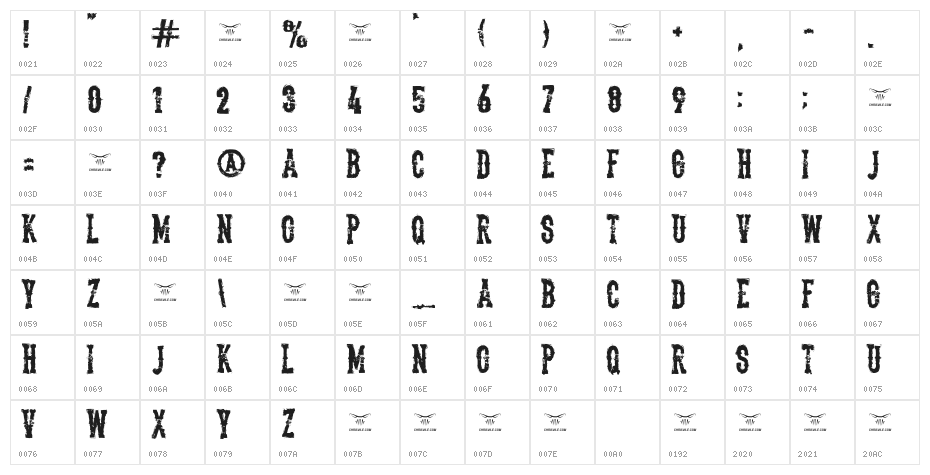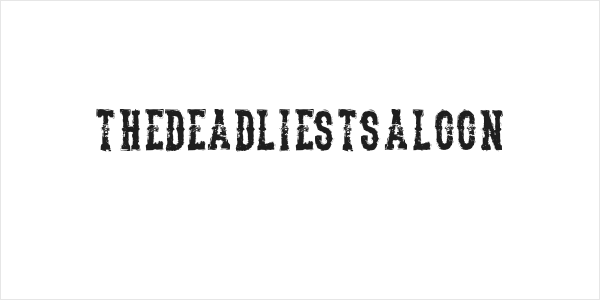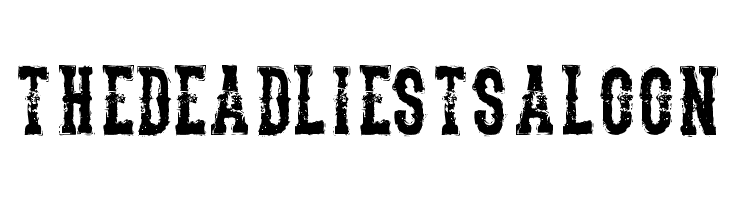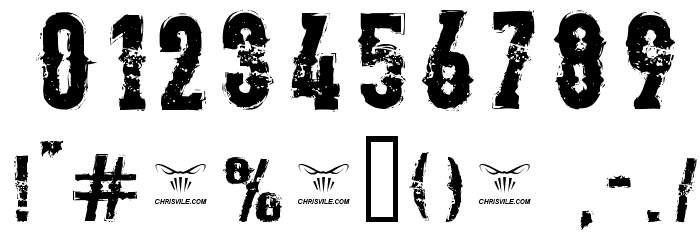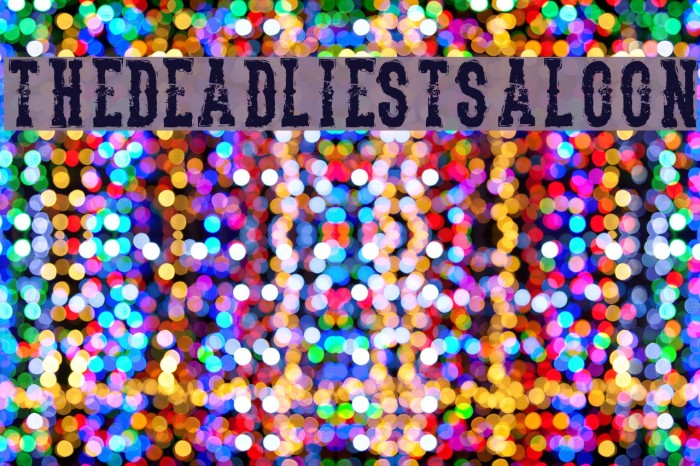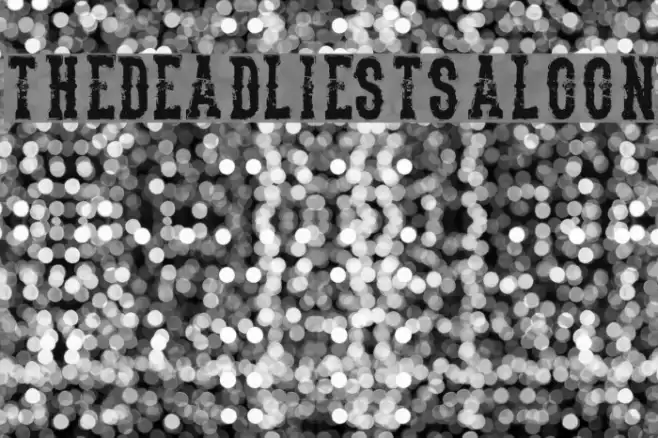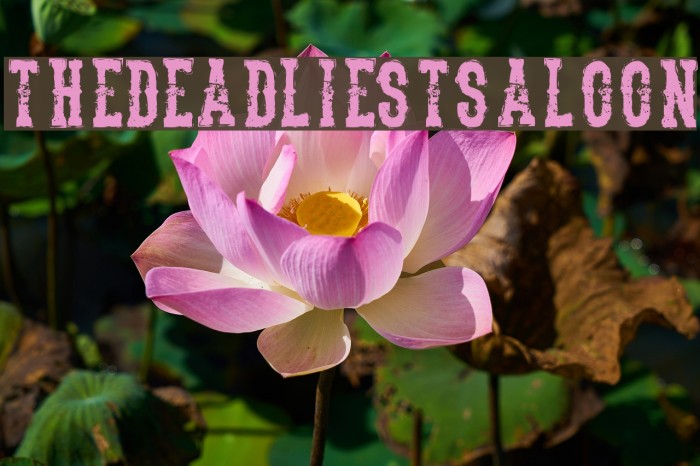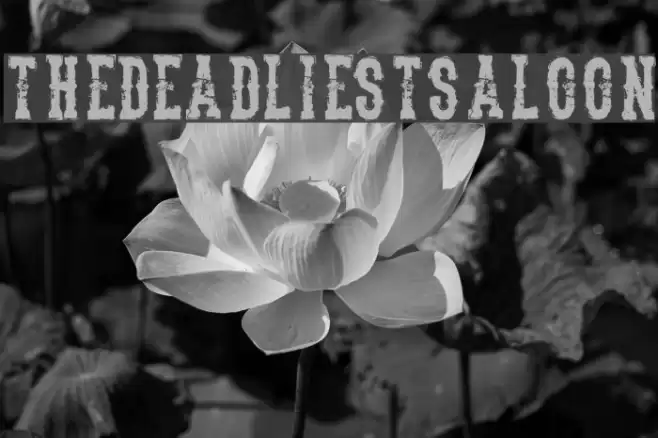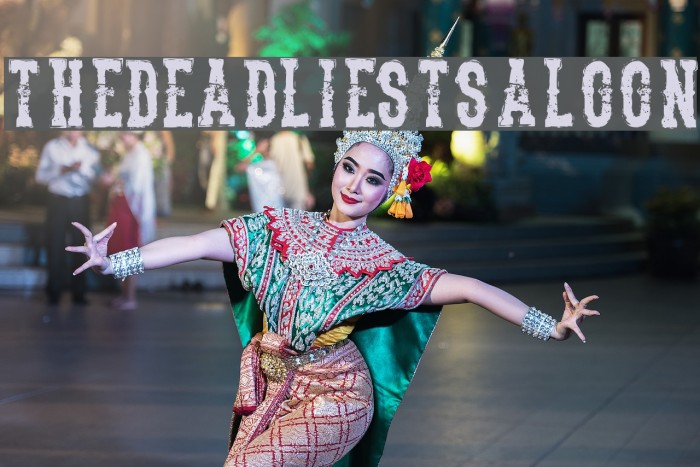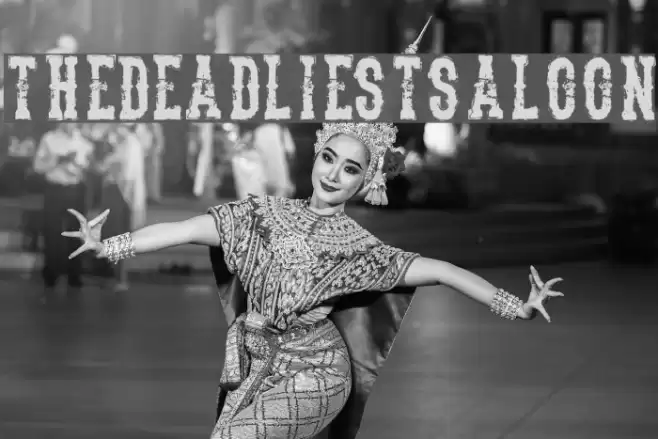
TheDeadliestSaloon Font
| Proiecte propuse | Perfect for vintage posters, western-themed events, rustic branding, and any project needing a rugged, historical touch. |